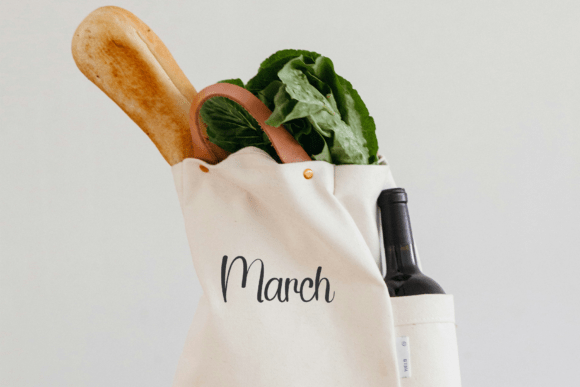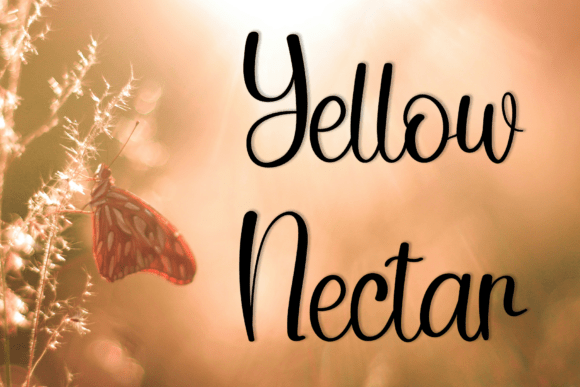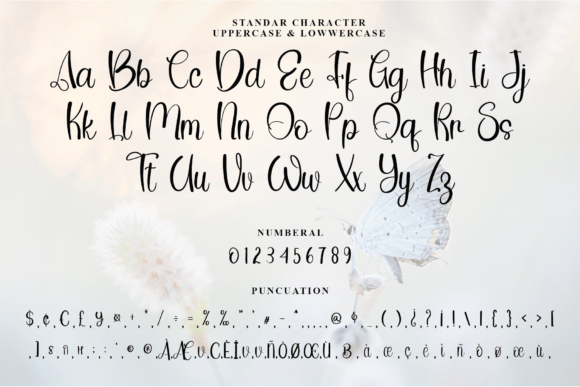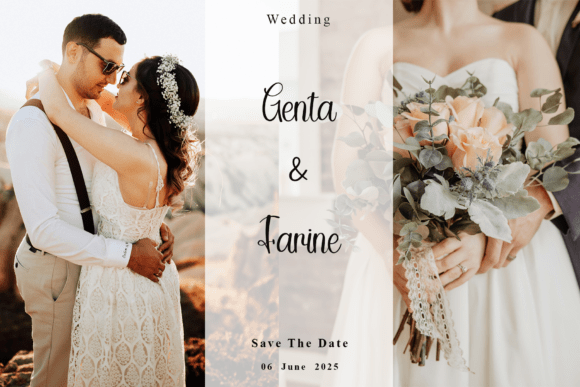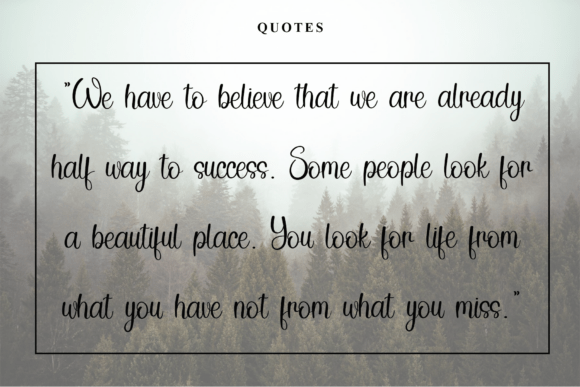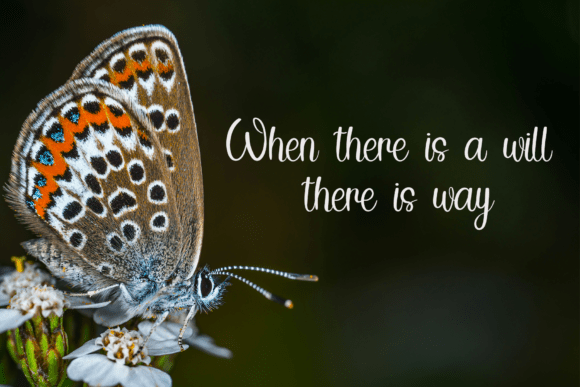
Introducing Butterfly Font: A Simple yet Versatile Handwritten Font
Are you looking for a font that can add a touch of simplicity and natural elegance to your design projects? Look no further than the Butterfly Font! This beautiful handwritten font is perfect for a wide range of applications, from greeting cards and invitations to headlines and more.
What is Butterfly Font?
Butterfly Font is a simple handwritten font that is designed to be versatile and easy to use. Its clean and elegant lines make it perfect for adding a personal touch to your designs. Whether you’re a designer, crafter, or DIY enthusiast, this font is sure to become a favorite in your collection.
Key Features of Butterfly Font
- Simple and Handwritten: Butterfly Font has a beautiful, handwritten feel that’s perfect for adding a personal touch to your designs.
- Versatile: This font can be used for a wide range of applications, from greeting cards and invitations to headlines and more.
- Easy to Read: The clean and elegant lines of Butterfly Font make it easy to read, even at small sizes.
- Natural Feel: This font has a natural, organic feel that’s perfect for designs that need to feel earthy and authentic.
Uses for Butterfly Font
Butterfly Font is a versatile font that can be used for a wide range of applications, including:
- Greeting Cards: Add a personal touch to your greeting cards with this beautiful handwritten font.
- Invitations: Use Butterfly Font to create beautiful and elegant invitations for weddings, parties, and more.
- Headlines: Add a touch of elegance to your headlines with this beautiful font.
- Signs: Use Butterfly Font to create signs for your business, event, or DIY project.
- Crafting: This font is perfect for crafters who want to add a personal touch to their projects, such as scrapbooking, journaling, and more.
Tips for Using Butterfly Font
Here are a few tips for using Butterfly Font in your designs:
- Pair with Other Fonts: Butterfly Font pairs well with other fonts, such as sans-serif fonts and script fonts.
- Use for Headlines and Body Text: This font is versatile enough to be used for both headlines and body text.
- Experiment with Colors: Try using Butterfly Font in different colors to add a pop of color to your designs.
- Use for Digital and Print Designs: This font can be used for both digital and print designs, making it perfect for a wide range of applications.
Why Choose Butterfly Font?
There are many reasons to choose Butterfly Font for your next design project. Here are a few:
- Unique and Elegant: This font has a unique and elegant feel that’s sure to make your designs stand out.
- Versatile: This font can be used for a wide range of applications, making it a great addition to your font collection.
- High-Quality: Butterfly Font is a high-quality font that’s designed to look great in any design.
In conclusion, Butterfly Font is a simple yet versatile handwritten font that’s perfect for a wide range of applications. Its clean and elegant lines make it easy to read and add a natural feel to your designs. Whether you’re a designer, crafter, or DIY enthusiast, this font is sure to become a favorite in your collection. So why wait? Download Butterfly Font today and start adding a touch of elegance to your designs!